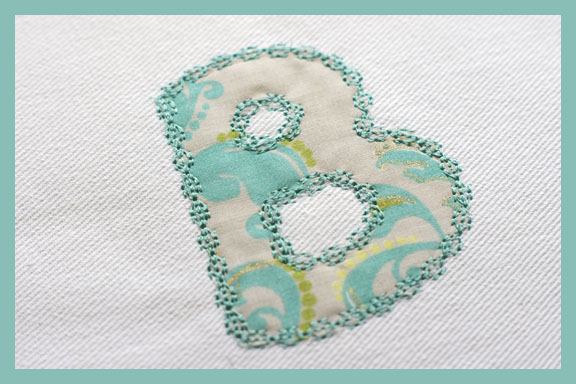
This awesome machine applique font set sports a beautiful decorate edge that stitches lighter and cleaner than the standard heavy satin stitch. Download the Manatee Decorative Edge Applique Font Set Machine Embroidery Design for Gold Members only.